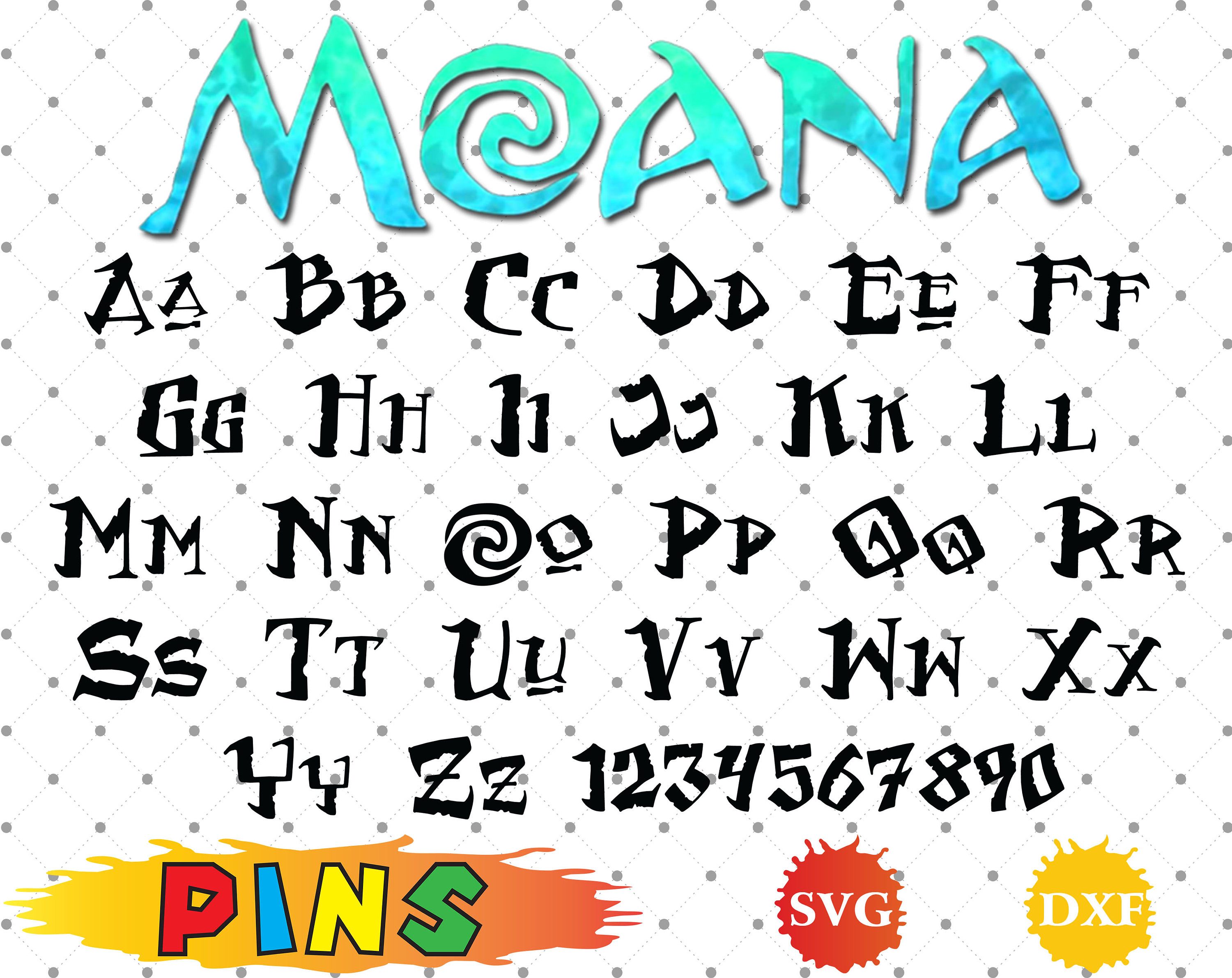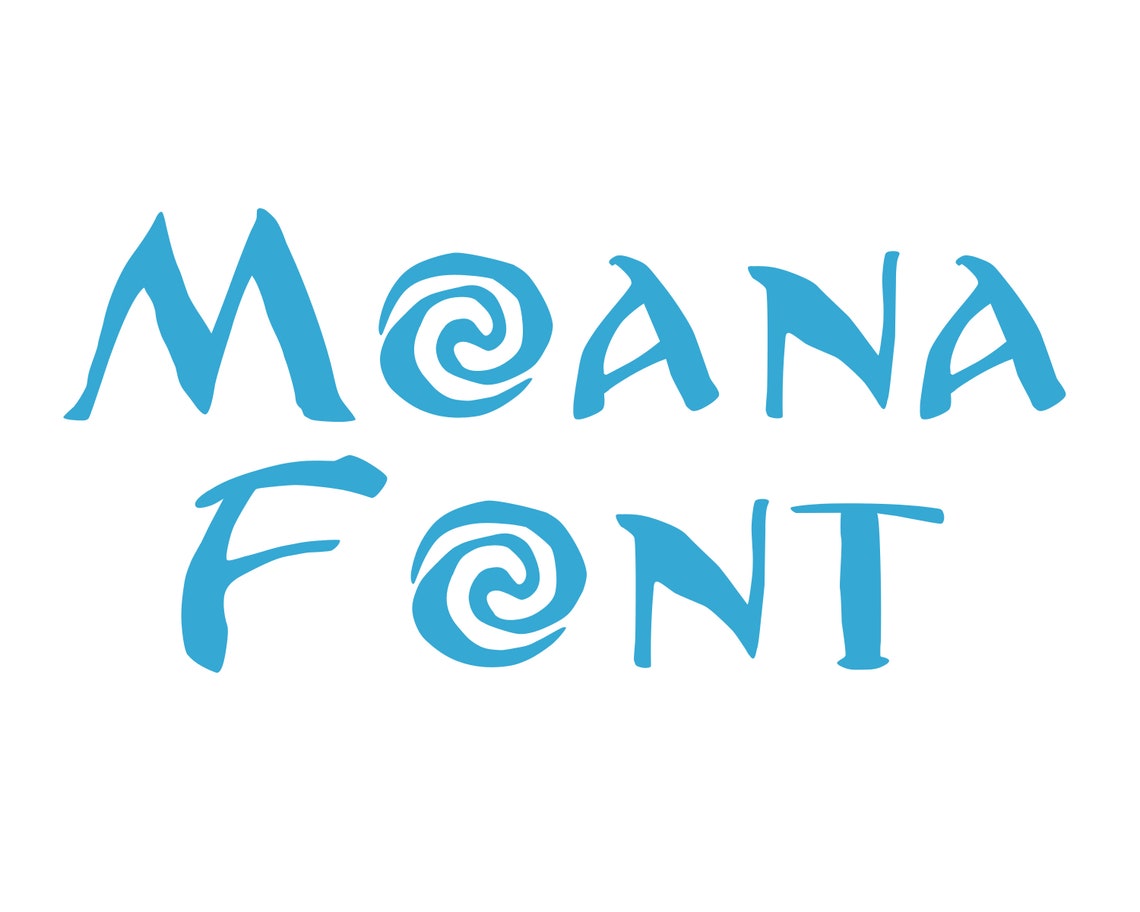
Moana Font Dafont
Moana Font Dafont - Browse by alphabetical listing, by style, by author or by popularity. Web moanas by joannavu is a font based on the title logo from the movie moana. It is a free font. Web archive of freely downloadable fonts. Web mar 10, 2018 at 01:43. “moana” is a 2016 american. Web black text choose style. The time is now 22:05.
Browse by alphabetical listing, by style, by author or by popularity. Web black text choose style. Web moanas by joannavu is a font based on the title logo from the movie moana. Web archive of freely downloadable fonts. It is a free font. The time is now 22:05. Web mar 10, 2018 at 01:43. “moana” is a 2016 american.
Browse by alphabetical listing, by style, by author or by popularity. Web moanas by joannavu is a font based on the title logo from the movie moana. Web mar 10, 2018 at 01:43. “moana” is a 2016 american. Web black text choose style. Web archive of freely downloadable fonts. It is a free font. The time is now 22:05.
“moana” is a 2016 american. The time is now 22:05. Web mar 10, 2018 at 01:43. Web moanas by joannavu is a font based on the title logo from the movie moana. Browse by alphabetical listing, by style, by author or by popularity.
Browse by alphabetical listing, by style, by author or by popularity. Web mar 10, 2018 at 01:43. The time is now 22:05. Web moanas by joannavu is a font based on the title logo from the movie moana. “moana” is a 2016 american.
Web mar 10, 2018 at 01:43. Web black text choose style. Web moanas by joannavu is a font based on the title logo from the movie moana. “moana” is a 2016 american. The time is now 22:05.
“moana” is a 2016 american. Browse by alphabetical listing, by style, by author or by popularity. Web moanas by joannavu is a font based on the title logo from the movie moana. Web black text choose style. Web mar 10, 2018 at 01:43.
“moana” is a 2016 american. It is a free font. Web moanas by joannavu is a font based on the title logo from the movie moana. The time is now 22:05. Browse by alphabetical listing, by style, by author or by popularity.
“Moana” Is A 2016 American.
Web Moanas By Joannavu Is A Font Based On The Title Logo From The Movie Moana.